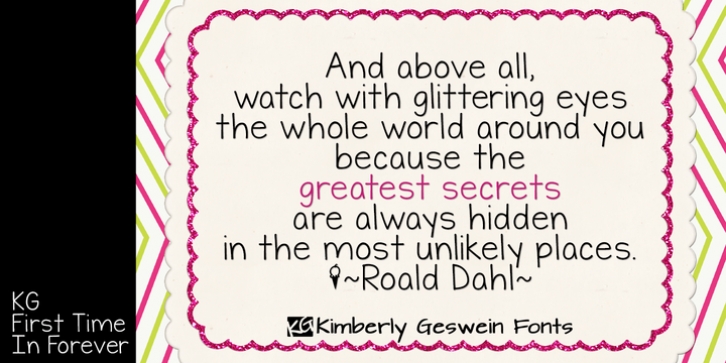
KG First Time In Forever downloadDesigner: Kimberly Geswein,
Publisher: Kimberly Geswein
This handwritten font was designed with Ashley Sanderson at Flying High In First Grade.